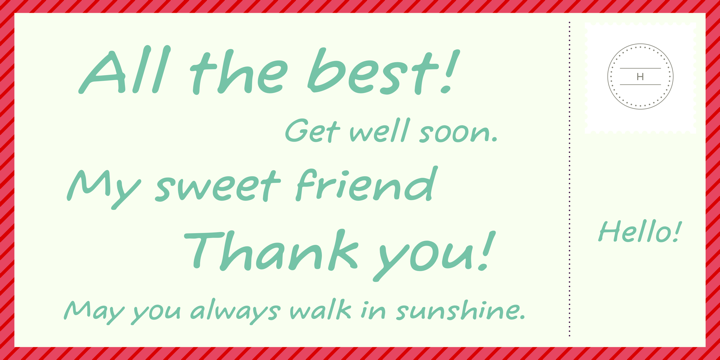
• Tuf Medium™ HMK
TufMediumHMK is a fun, energetic script font created with a youthful handwriting style. Tuf resembles the lettering used to jot notes, and its slight italic angle gives words a friendly, persuasive appearance.